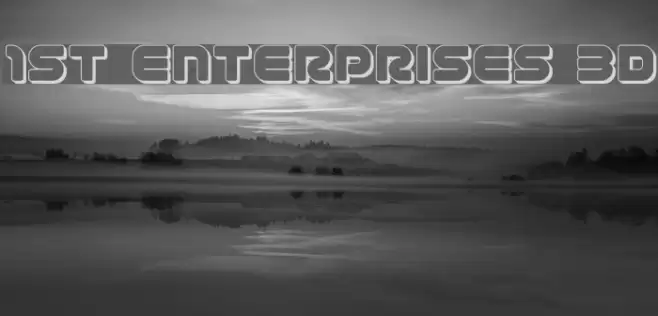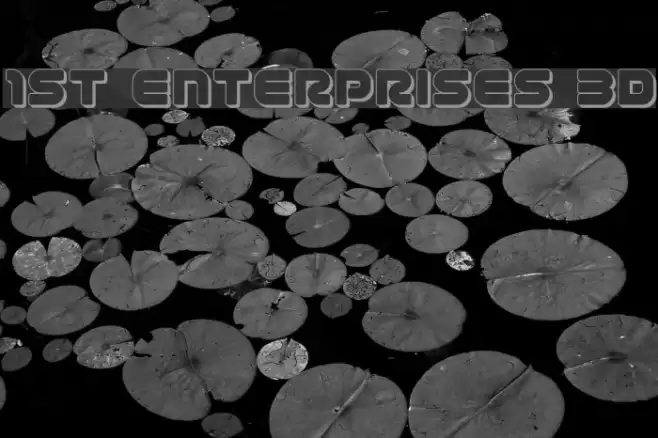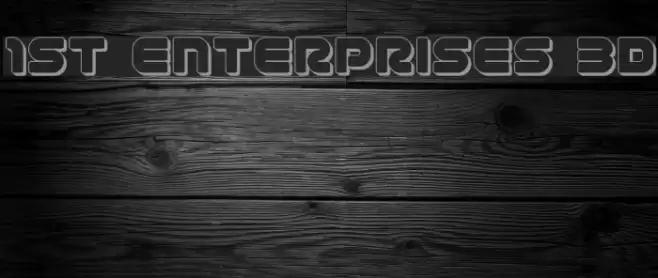
1st Enterprises 3D Font
1st Enterprises 3D Description
This font features a bold, three-dimensional appearance with a distinct outline that gives each character a sense of depth and volume. The letters are uppercase and have a rounded, blocky style, which makes them highly legible and impactful. The numbers and special characters follow the same design principles, ensuring consistency across all glyphs. The font's playful yet structured look makes it suitable for eye-catching designs. Its thick strokes and outlined edges create a strong visual presence, ideal for projects that require a modern and dynamic aesthetic.
| Proposed Projects | Ideal for logos, posters, video game graphics, and any project needing a modern, eye-catching font. |